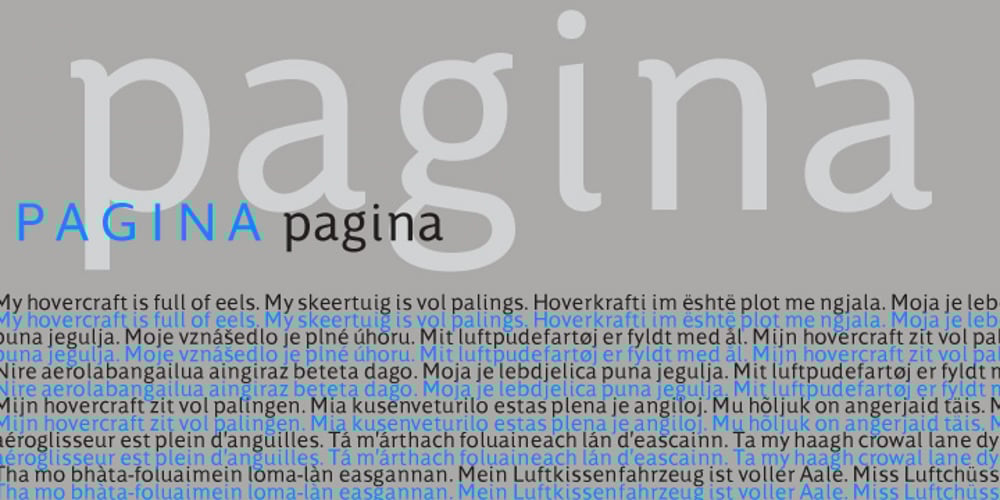
Pagina Font Family was designed by published by Wilton Foundry. Pagina contains 4 styles and family package options. Pagina is dedicated to the paper or epaper on which type appears. Pages come in all shapes and sizes and come to life with endless typographic variations that range from flippant to philosophical ideas. It is so easy to get wrapped up in fonts and words and forget that type would not exist without a background. So, now we’ve set the record straight and have a font dedicated to the medium. Do not underestimate the effort that went into designing this font – it was designed to convey each character in its simplest, most recognizable form, in a very useful basic font family that will faithfully serve designers well. Pagina is timeless and looks equally attractive in small as well as larger sizes.